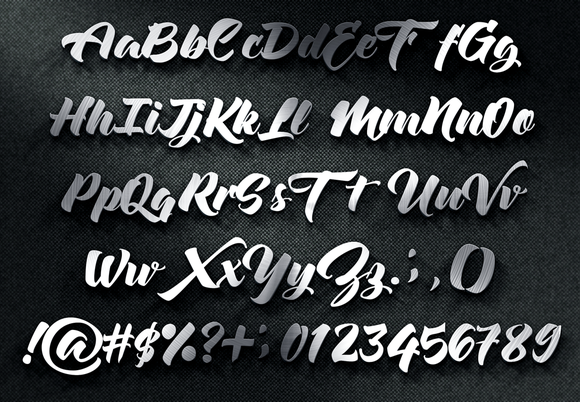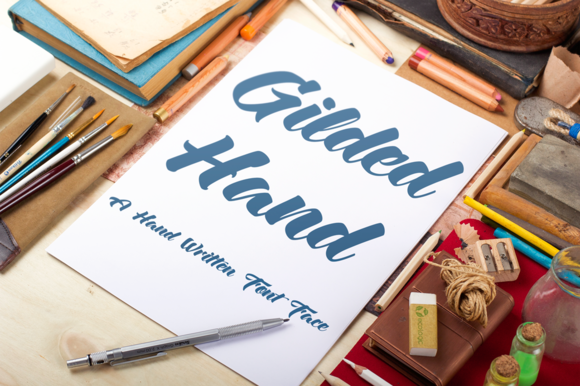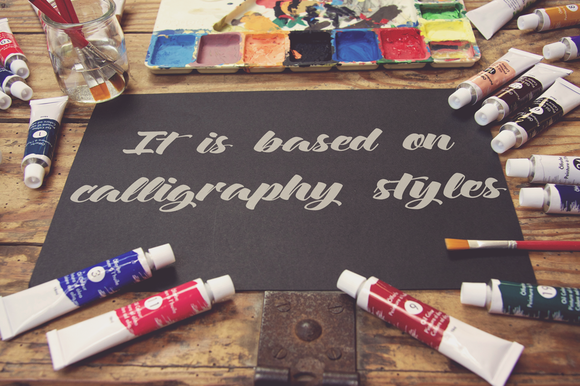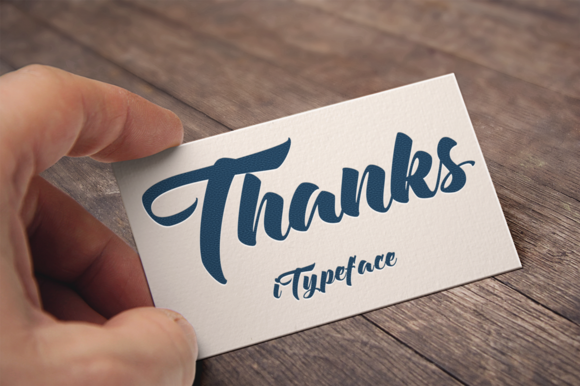
Beautiful Font
Beautiful-Font is based on calligraphic styles: italic and brush pen. Started with simple and contrasted strokes on paper with brush and marker.
Beautiful-Font is modern script font, every single letters have been carefully crafted to make your text looks beautiful. With modern script style this font will perfect for many different project ex: quotes, blog header, poster, wedding, branding, logo, fashion, apparel, letter, invitation, stationery, etc.